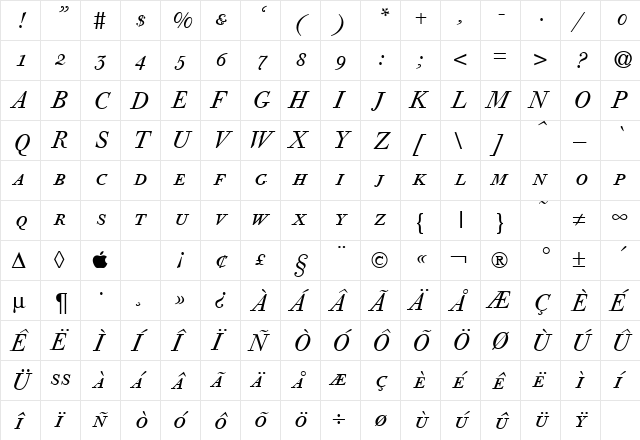
GiambattistaSmc RegularItalic
Design Context for GiambattistaSmc Typeface
GiambattistaSmc is a composed and adaptable typeface that performs quietly and consistently across a wide range of design contexts. Its italic angle brings a sense of urgency and motion to the letterforms.